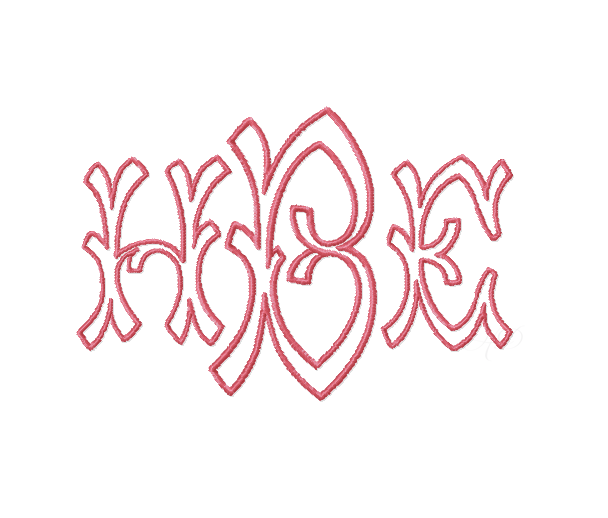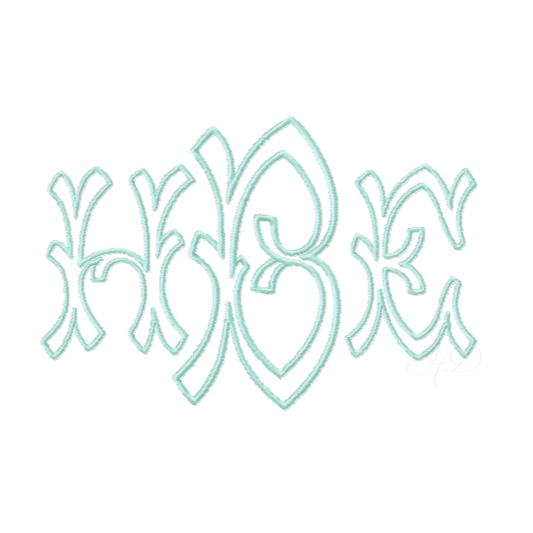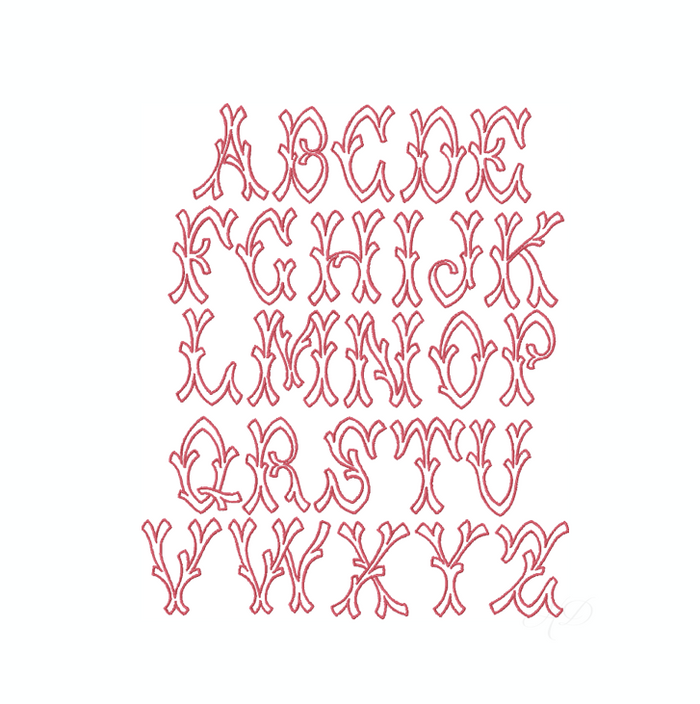
Bamboo Open Satin Ribbed Embroidery Font for crafting
Bamboo Open Satin Ribbed Embroidery Font Small
Elevate your crafting projects with the Bamboo Open Satin Ribbed Embroidery Font. This one-color monogram features uppercase letters A-Z, providing you with the perfect touch for personalization. Ideal for DIY enthusiasts and crafters alike, this versatile font comes with five sizes suitable for a 4x4 embroidery hoop: 1", 1.5", 2", 2.5", and 3".